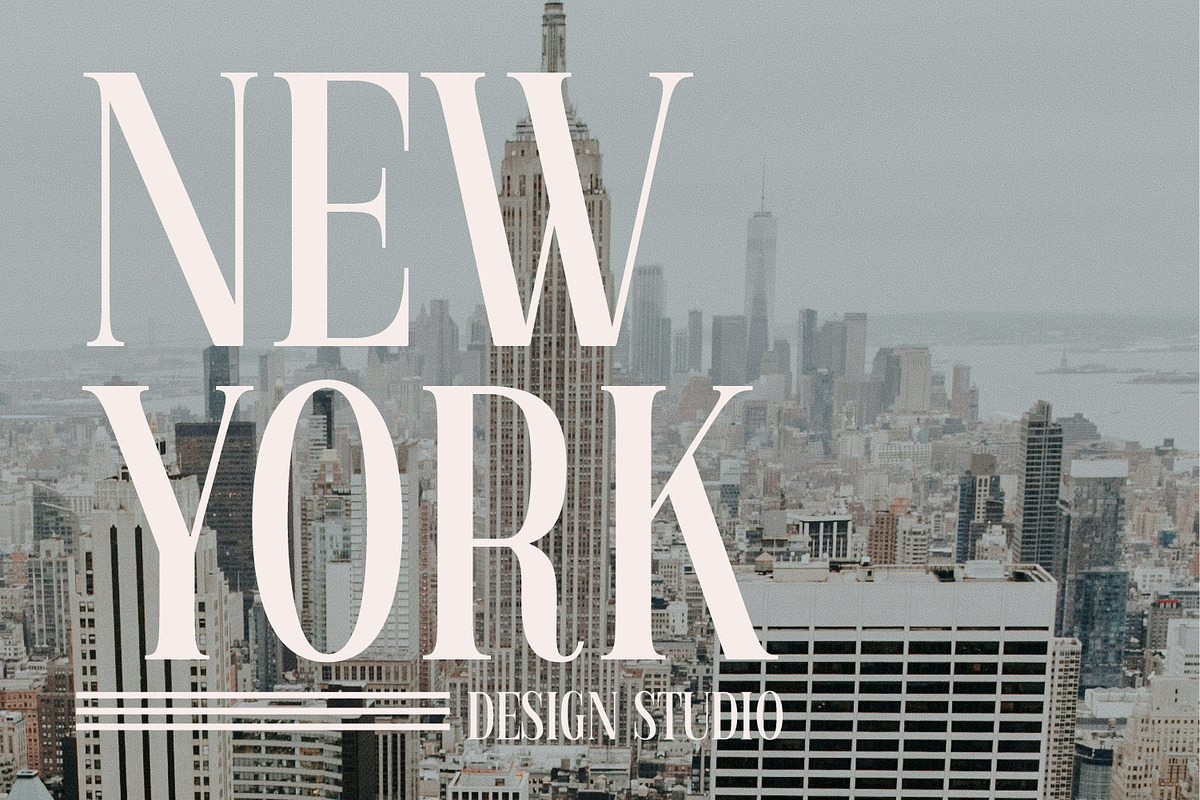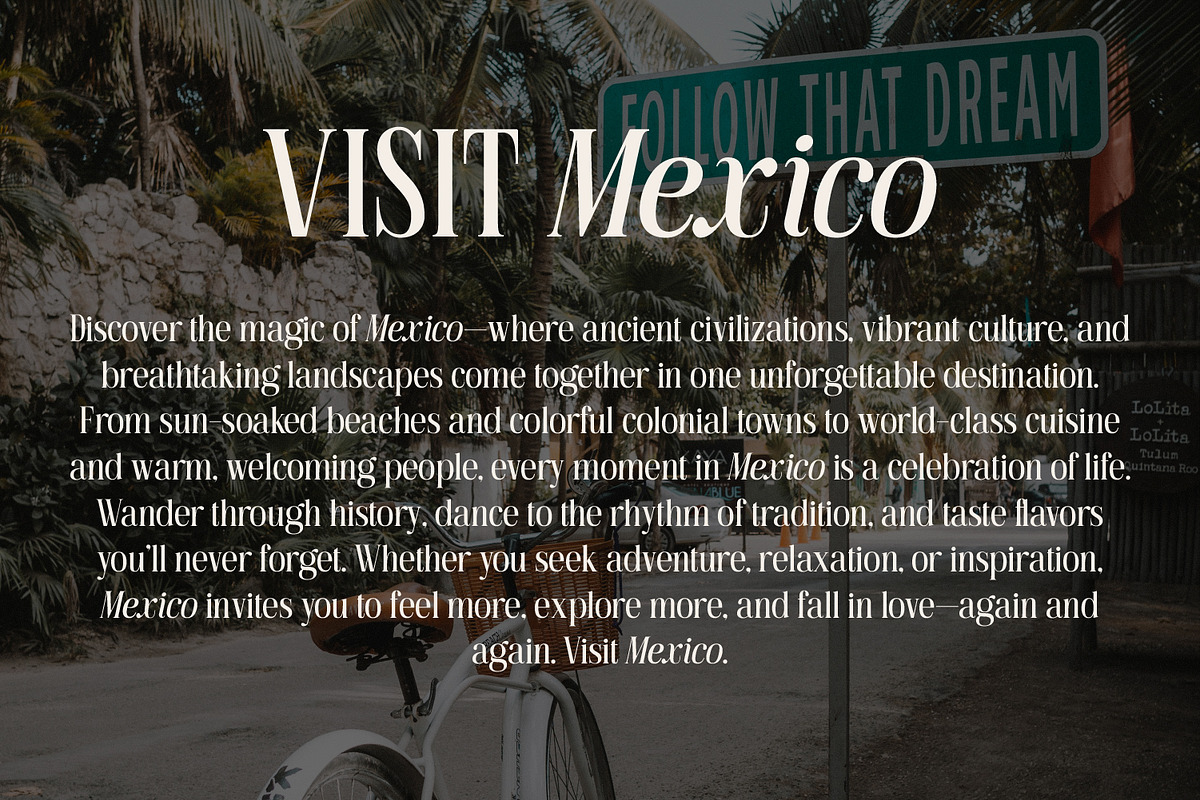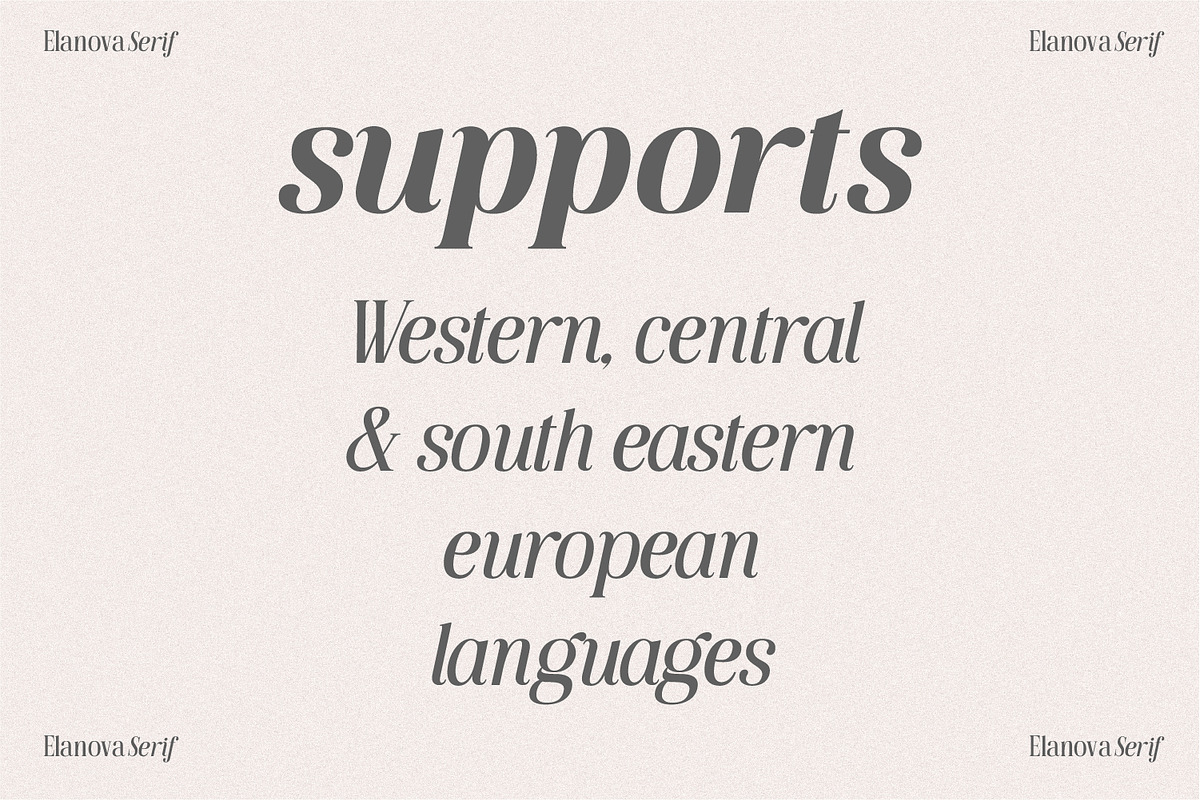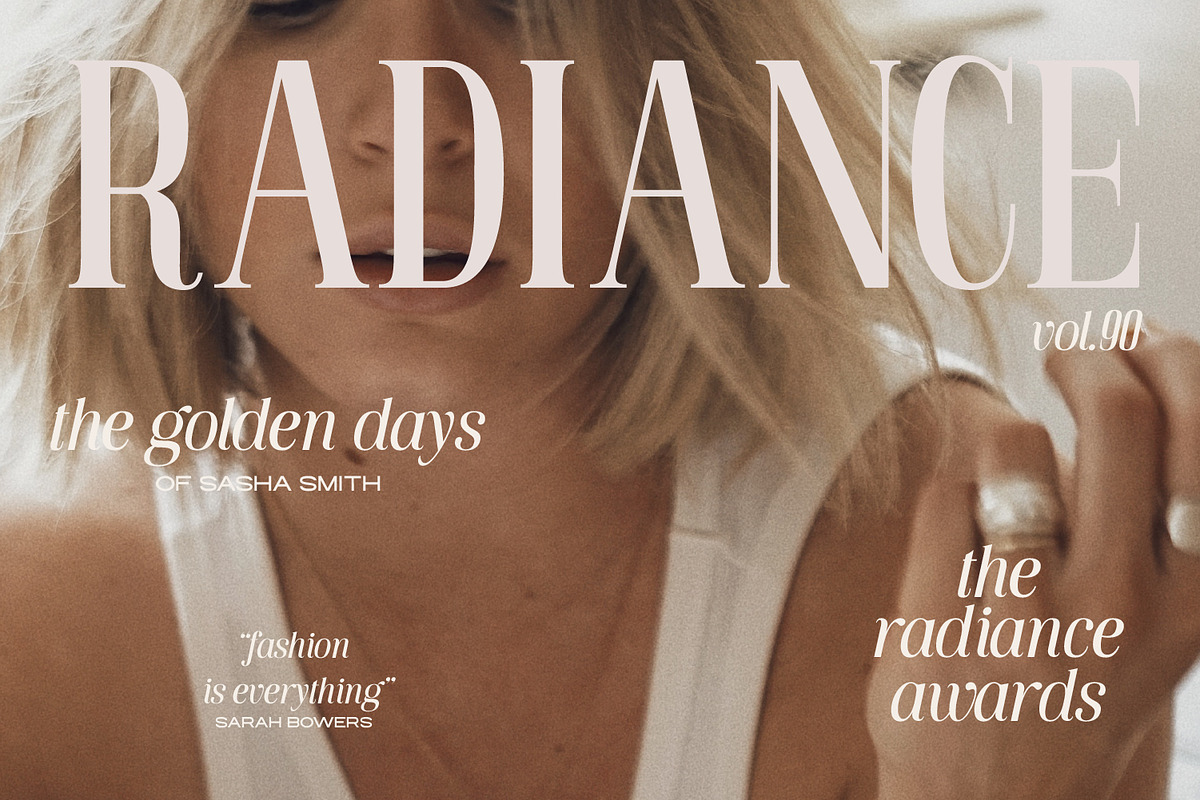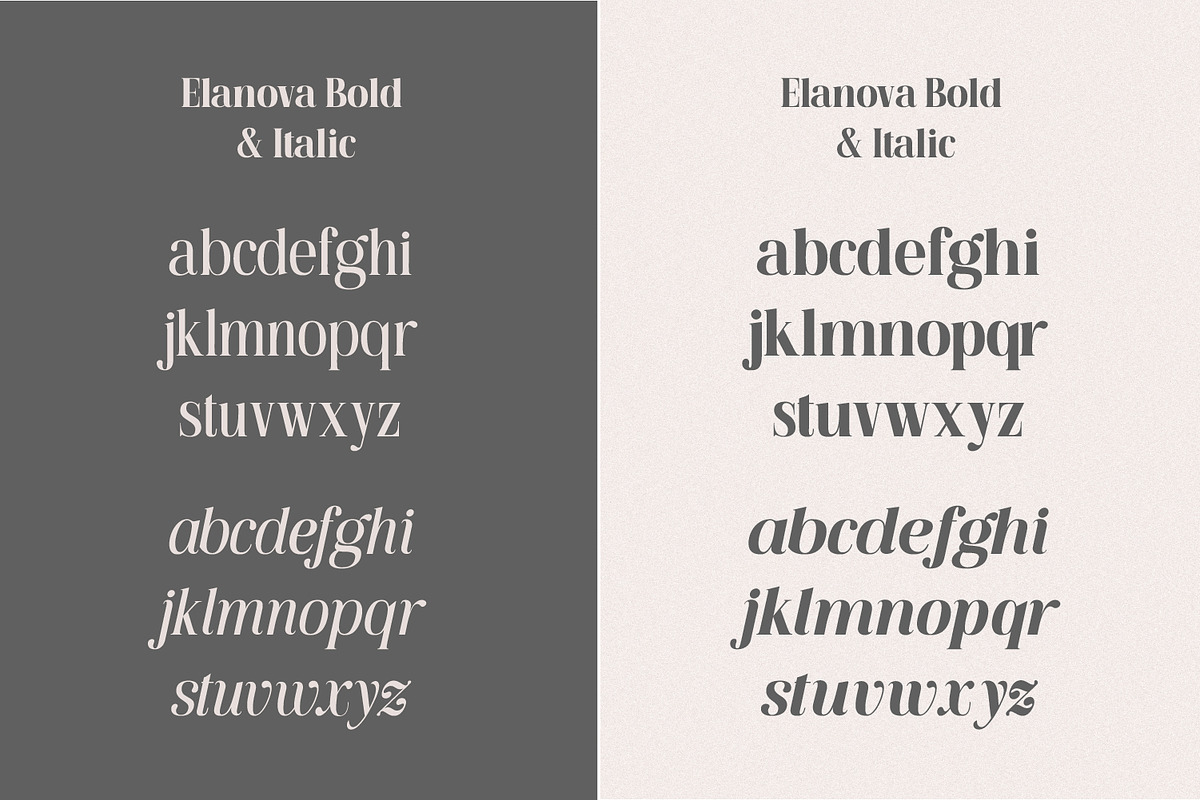
Elanova Serif
Introducing Elanova — a bold yet refined uppercase serif font that embodies sophistication, confidence, and timeless elegance. Designed to make a powerful visual statement, Elanova is perfectly suited for premium branding, editorial layouts, logos, invitations, luxury packaging, and high-end design projects.
Elanova seamlessly blends modern precision with classic serif beauty. Its sharp contrasts, graceful curves, and carefully balanced proportions create a strong yet elegant presence, making it ideal for fashion, lifestyle, and luxury brands seeking distinction and authority. Every letterform is meticulously crafted to command attention while maintaining effortless refinement.
The font family includes Regular, Regular Italic, Bold, and Bold Italic, offering flexibility for dynamic typographic systems — from striking headlines and refined logotypes to sophisticated editorial compositions.
Whether you are crafting a statement logo, an editorial masterpiece, or a premium brand identity, Elanova elevates your designs with unmistakable class and contemporary elegance.